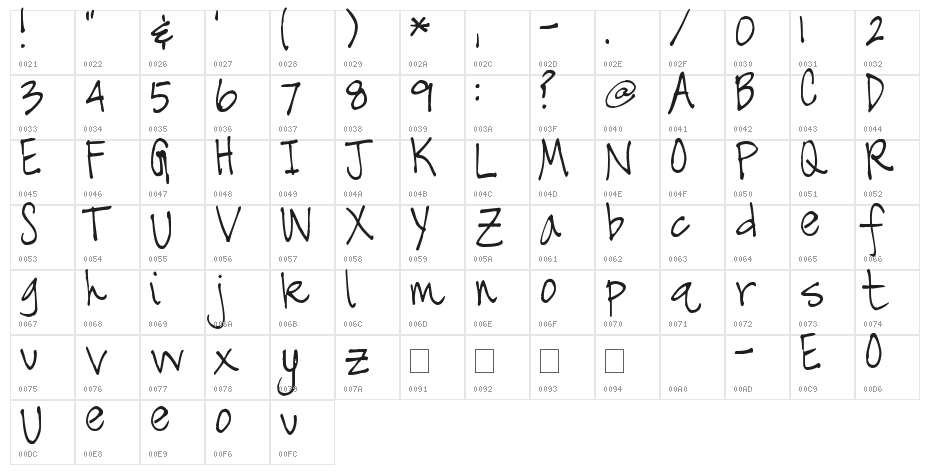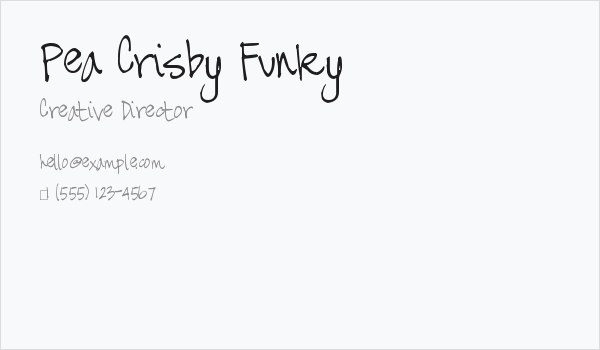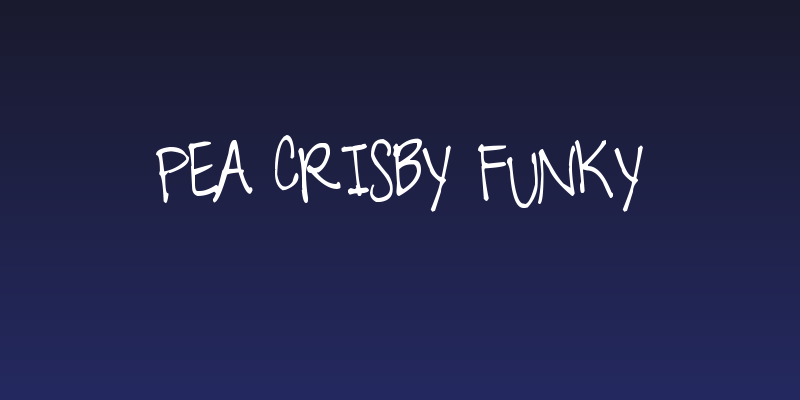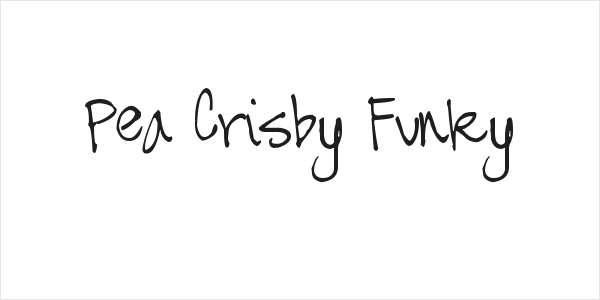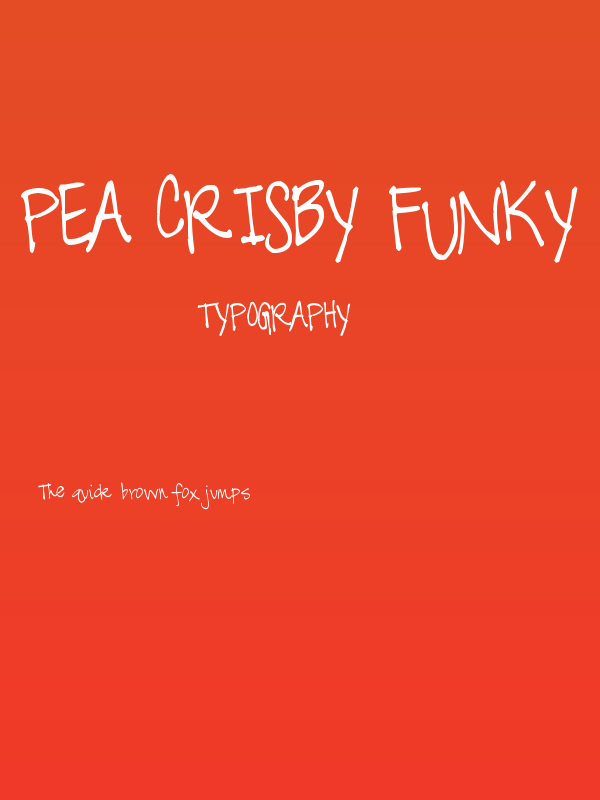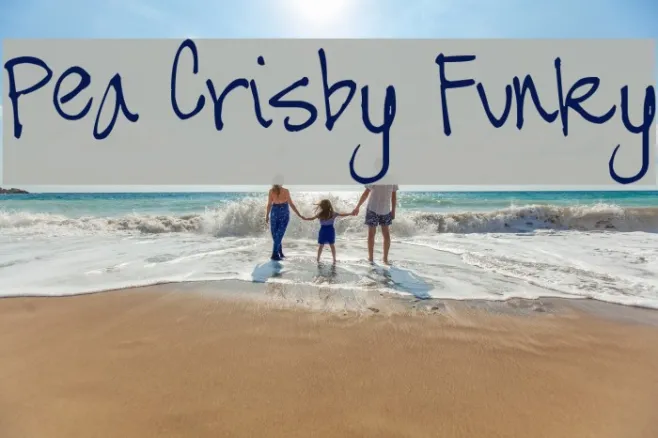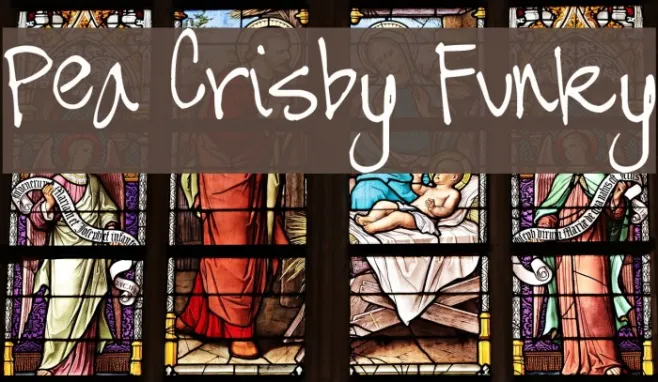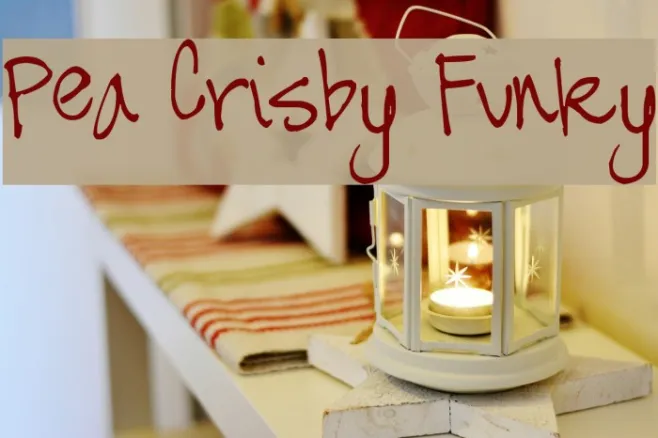
Pea Crisby Funky Font
Pea Crisby Funky Description
This font features a playful and casual handwritten style, characterized by its irregular and dynamic strokes. The letters are slightly slanted, giving a sense of movement and energy. The uppercase and lowercase letters maintain a consistent style, with rounded edges and varying stroke widths that add to its informal charm. Numbers and special characters follow the same lively design, making it suitable for projects that require a personal touch. The overall appearance is friendly and approachable, making it ideal for creative and informal applications.
| Overall Style | Casual |
| Use Case | Headlines, Informal text, Creative projects |
| Proposed Projects | Ideal for greeting cards, children's books, personal blogs, and creative branding projects. |